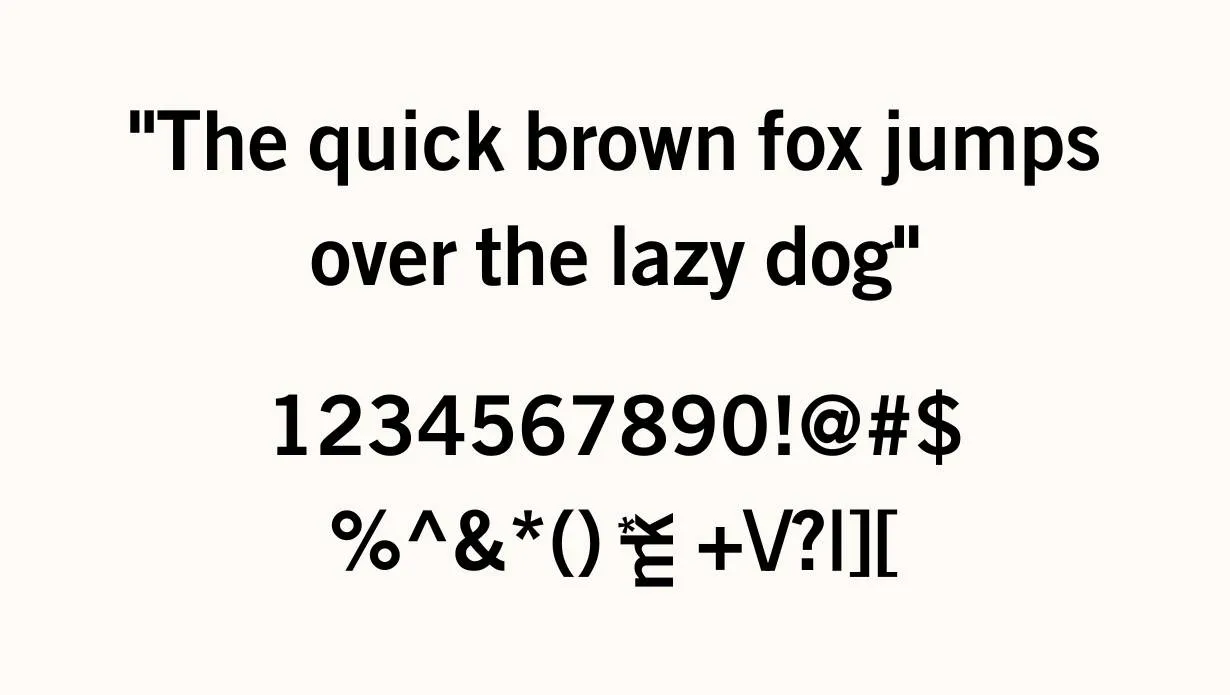
The ABBA Logo font is like a disco dance floor for your words. With its bold and groovy design, it’s perfect for creating eye-catching music event posters, designing vibrant album covers, or adding a touch of retro fun to your branding.
This font has a heavy weight and slightly expanded width, ensuring your words pop with rhythm and energy. Imagine using the ABBA Logo font for a dance party flyer, turning your text into a disco sensation.
| Name | ABBA Logo Font |
| Designer | Rune Söderqvist |
| Style | Logo |